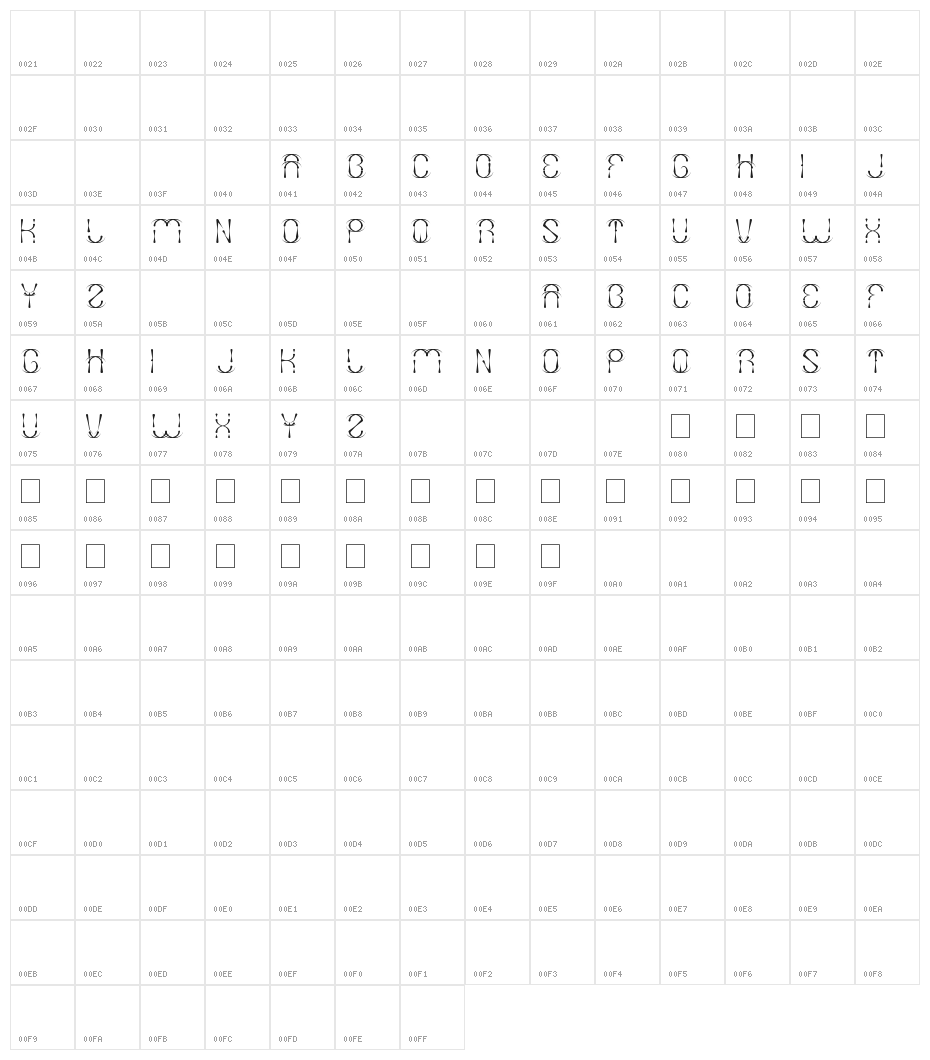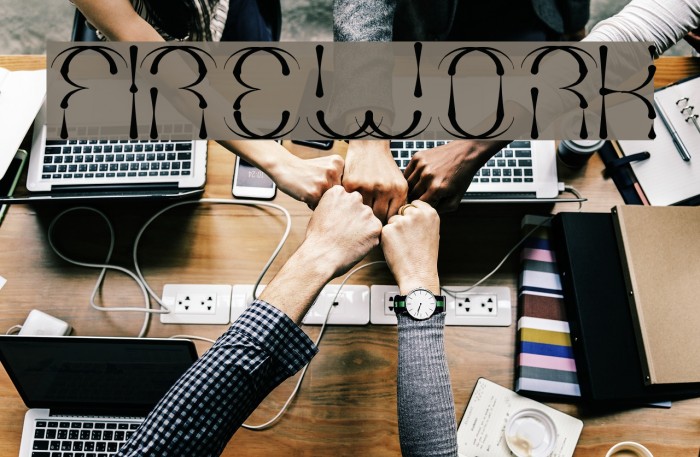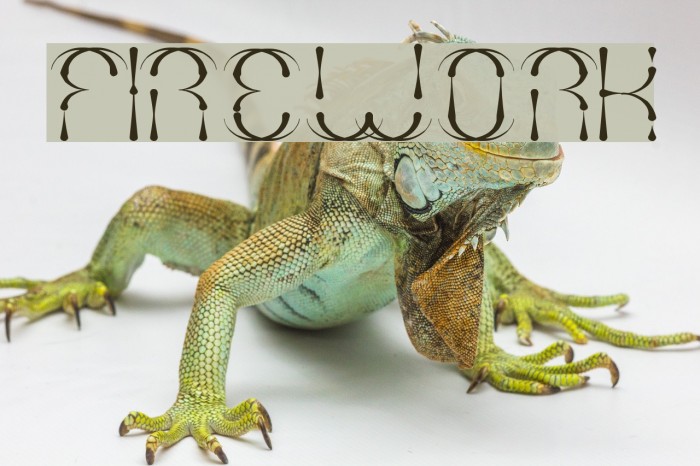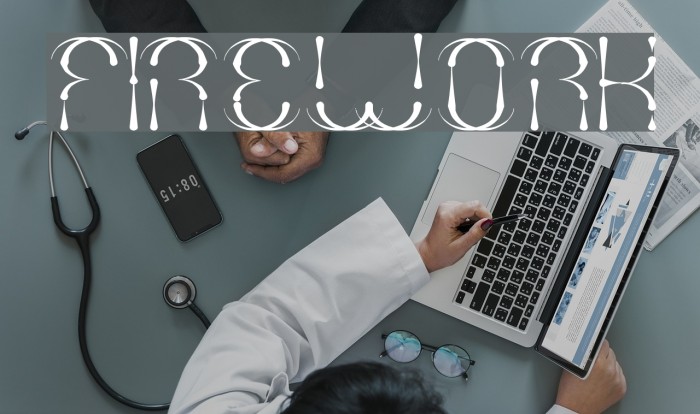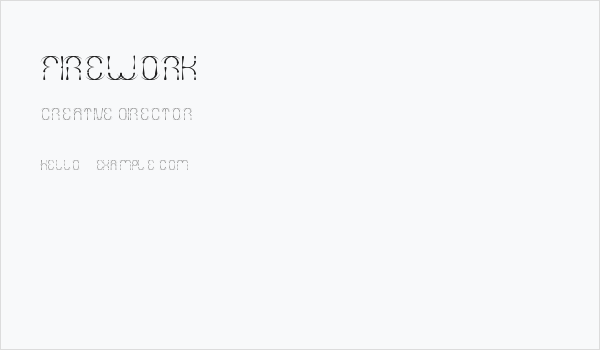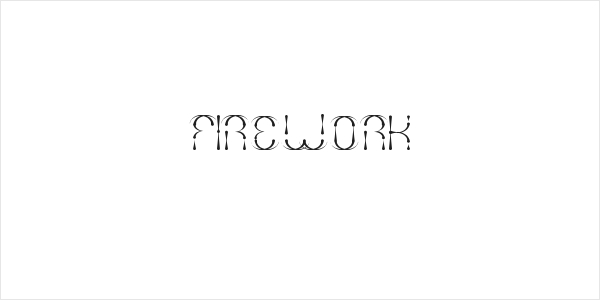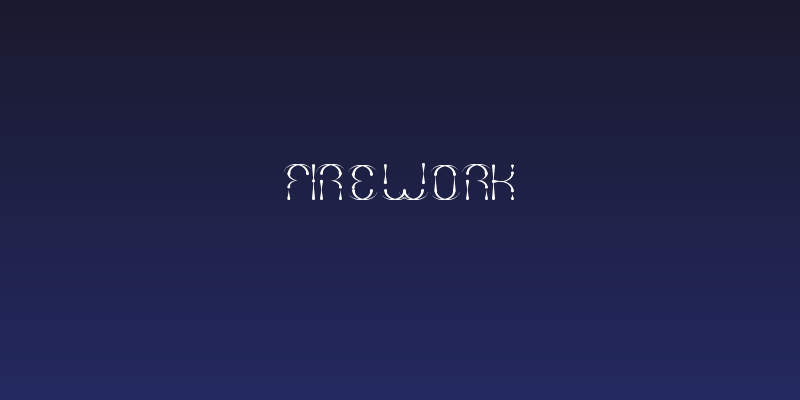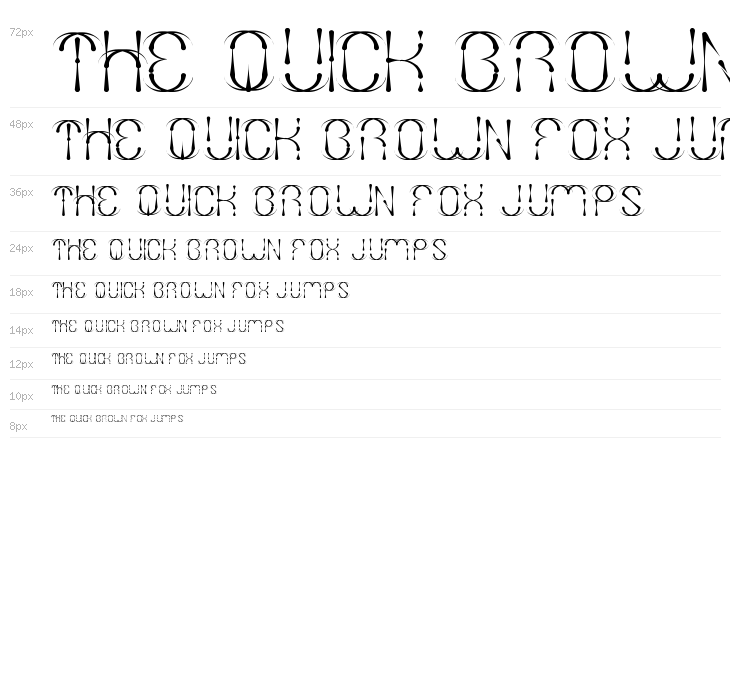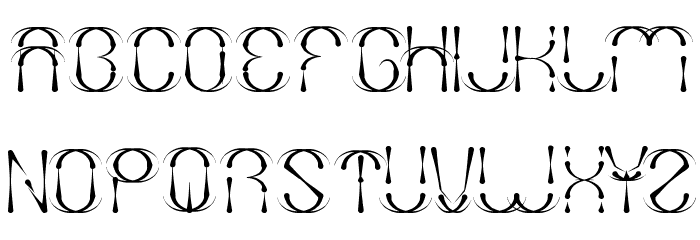
firework Font
firework Description
This font features a highly decorative and artistic style, characterized by intricate swirls and flourishes that extend from the main strokes of each letter. The design evokes a sense of elegance and creativity, reminiscent of fireworks or floral patterns. Each character is uniquely crafted, with a consistent theme of embellishments that create a cohesive and visually striking appearance. The uppercase letters are particularly ornate, making them suitable for attention-grabbing headlines or artistic projects. The overall aesthetic is both modern and whimsical, offering a unique blend of sophistication and playfulness.
| Use Case | Headlines, Logos, Artistic projects |
| Proposed Projects | Ideal for creative projects such as event invitations, artistic posters, branding for luxury products, or any design requiring a touch of elegance and flair. |